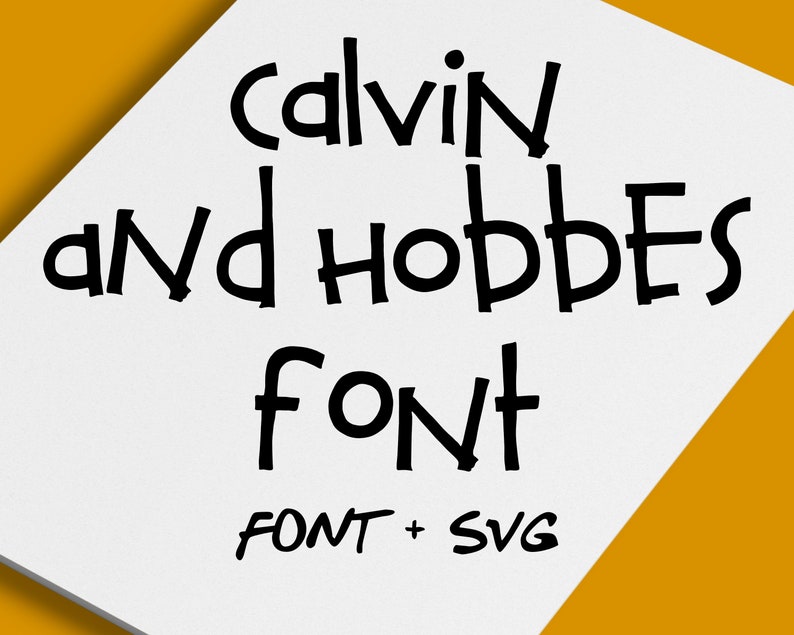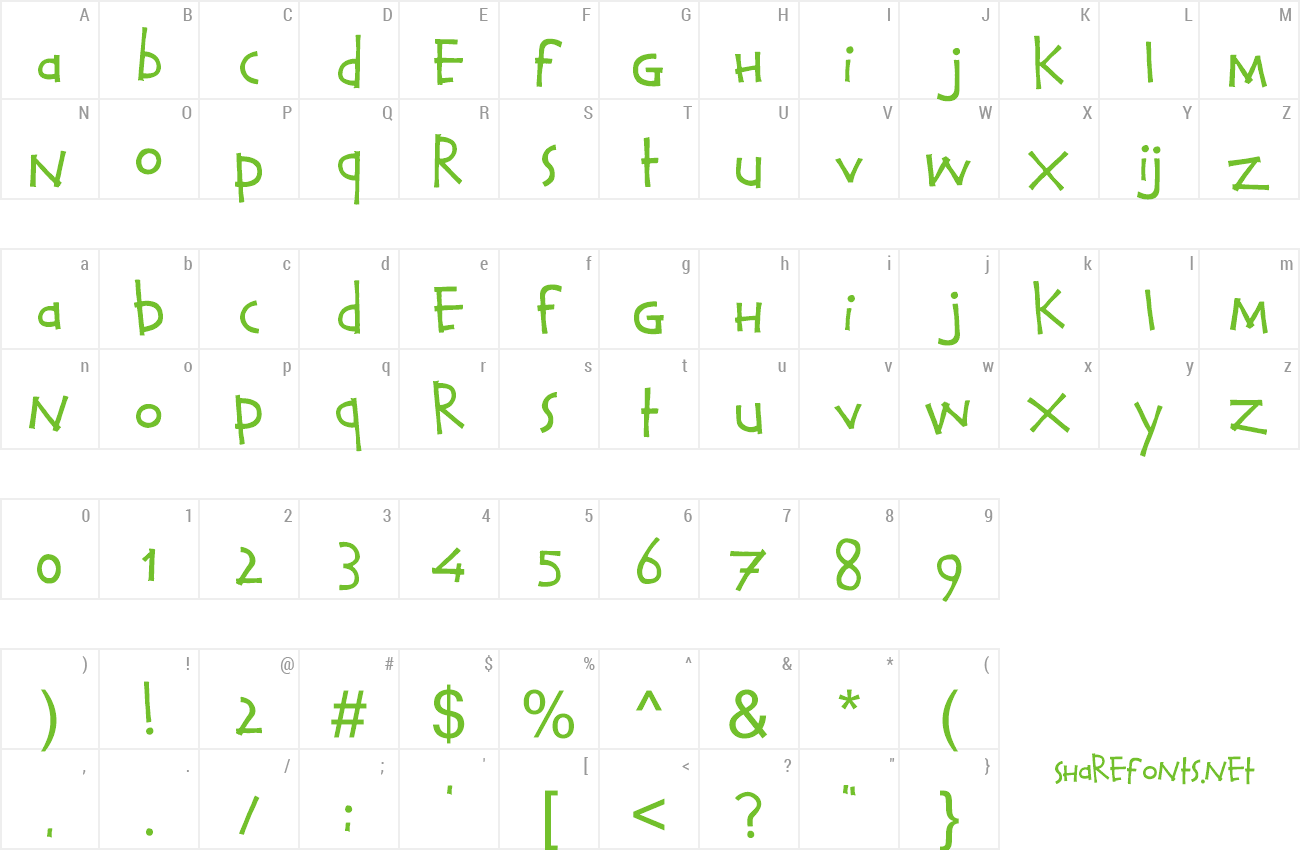
Calvin Hobbes Font
Calvin Hobbes Font - The special features of this. This calvin and hobbes font emerged with cute and fancy designs that can give off playful vibes to your typography. Calvin and hobbes by martijn reemst.
Calvin and hobbes by martijn reemst. This calvin and hobbes font emerged with cute and fancy designs that can give off playful vibes to your typography. The special features of this.
Calvin and hobbes by martijn reemst. The special features of this. This calvin and hobbes font emerged with cute and fancy designs that can give off playful vibes to your typography.
The special features of this. This calvin and hobbes font emerged with cute and fancy designs that can give off playful vibes to your typography. Calvin and hobbes by martijn reemst.
Calvin and Hobbes Normal Font
The special features of this. Calvin and hobbes by martijn reemst. This calvin and hobbes font emerged with cute and fancy designs that can give off playful vibes to your typography.
Calvin and hobbes by martijn reemst. This calvin and hobbes font emerged with cute and fancy designs that can give off playful vibes to your typography. The special features of this.
Calvin & Hobbes font. "There's never enough time to do all the nothing
The special features of this. This calvin and hobbes font emerged with cute and fancy designs that can give off playful vibes to your typography. Calvin and hobbes by martijn reemst.
This calvin and hobbes font emerged with cute and fancy designs that can give off playful vibes to your typography. Calvin and hobbes by martijn reemst. The special features of this.
This calvin and hobbes font emerged with cute and fancy designs that can give off playful vibes to your typography. The special features of this. Calvin and hobbes by martijn reemst.
Calvin and hobbes by martijn reemst. This calvin and hobbes font emerged with cute and fancy designs that can give off playful vibes to your typography. The special features of this.
Calvin And Hobbes By Martijn Reemst.
This calvin and hobbes font emerged with cute and fancy designs that can give off playful vibes to your typography. The special features of this.